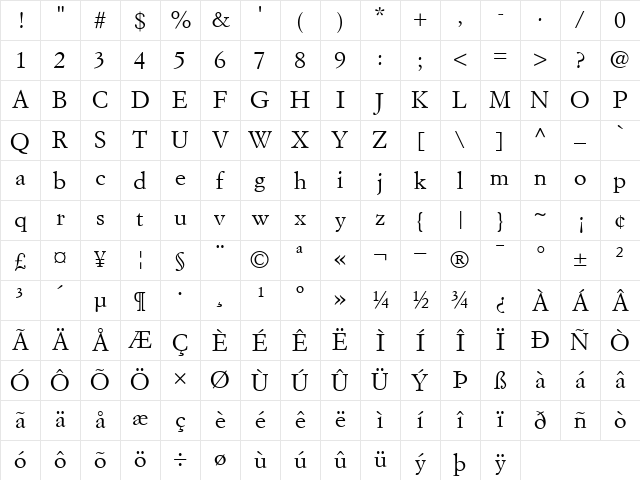
Complete SimonciniGaramond Roman glyph index. Displaying only characters natively supported by SimonciniGaramond Roman font.
SimonciniGaramond is a composed and adaptable typeface that performs quietly and consistently across a wide range of design contexts.